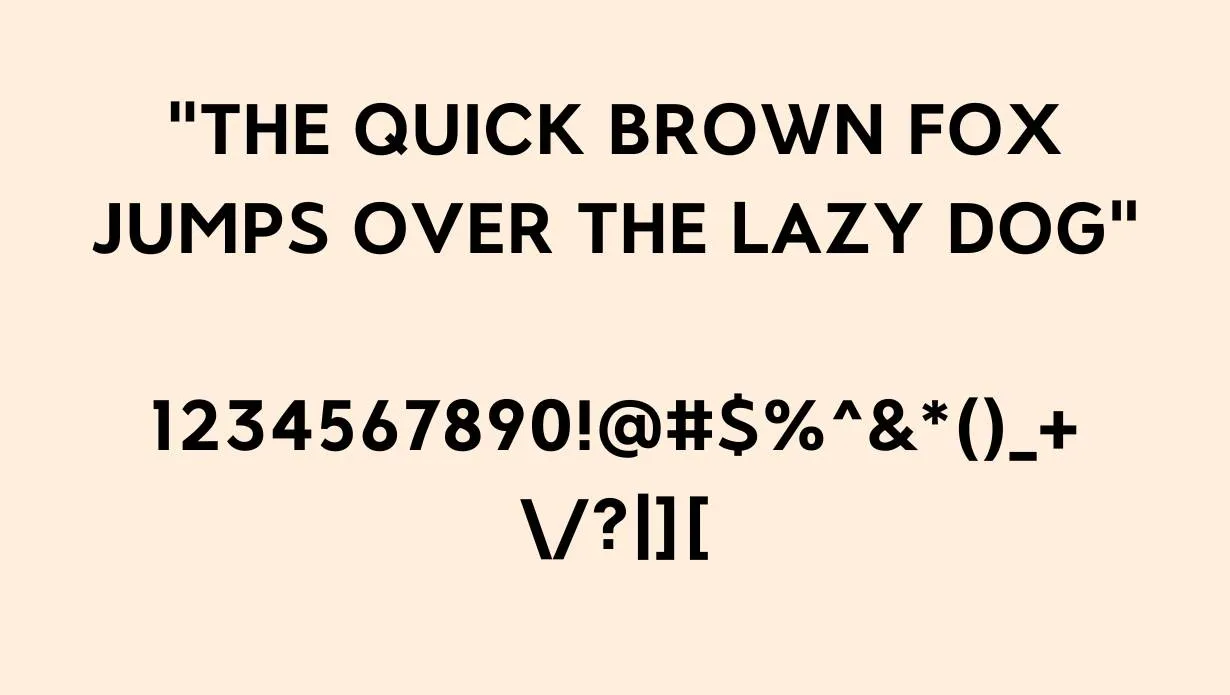
Nevermind Font is a typeface with a bold and edgy design, perfect for projects that want to make a statement.
It’s often used in music posters, street fashion, and designs that embrace non-conformity and creativity. The font adds an element of rebellion and a cool, non-traditional vibe to your design work. The coveted texture of this typeface makes it a favorite among creators.
| Name | Nevermind Font |
| Designer | Max Kisman |